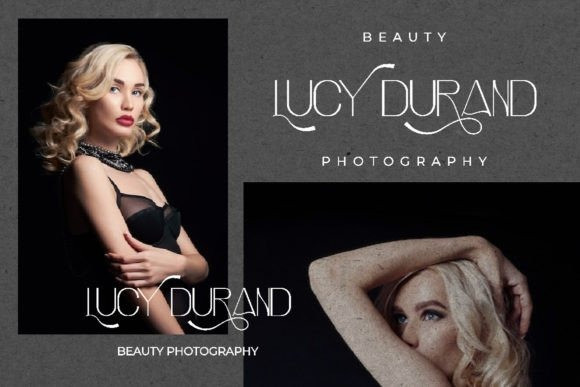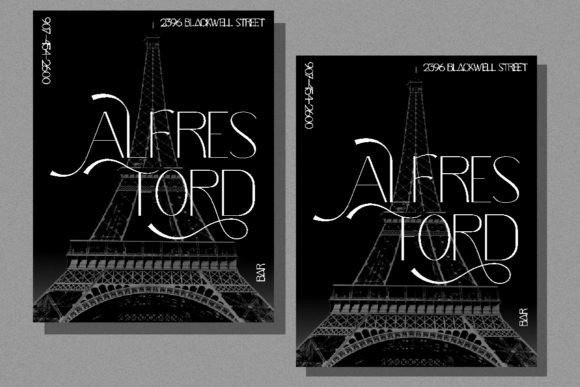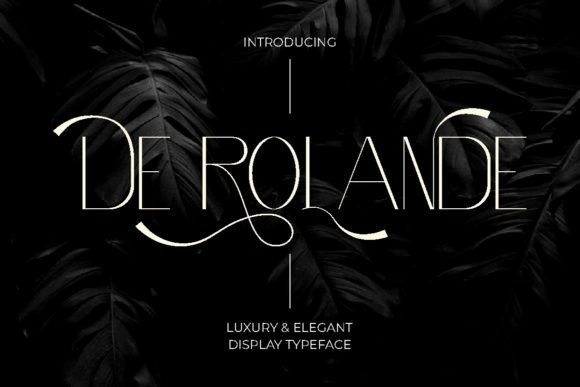
De Rolande Font
De Rolande Font is a luxury display typeface designed for elegant and sophisticated designs. The font has a classic and timeless feel that exudes luxury and style. The font was inspired by the grandeur of the French Renaissance and the beauty of calligraphic art.
De Rolande is a perfect font choice for luxury brands, the fashion and beauty industry, high-end products, and sophisticated designs. The font can add a touch of elegance and sophistication to your designs. It is a versatile font that can be used for logos, branding, book covers, posters, flyers, and digital designs.
De Rolande is the perfect font for any luxury brand looking to create a sophisticated and elegant image. The font is easy to read and its classic design ensures that it will never go out of style. With its unique features, it will make your designs stand out and make an impact on your target audience.